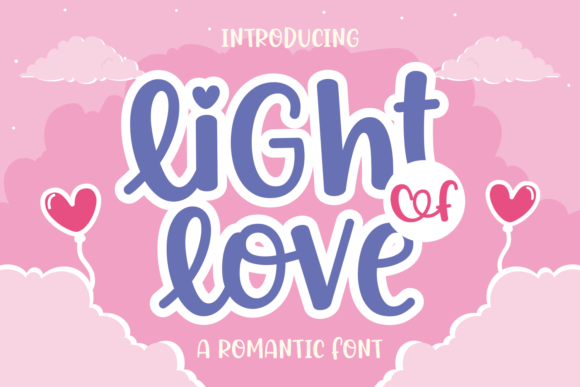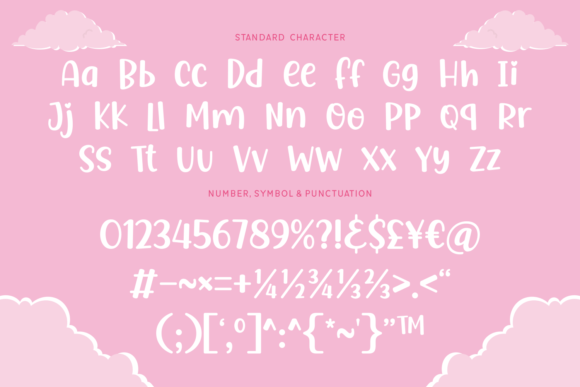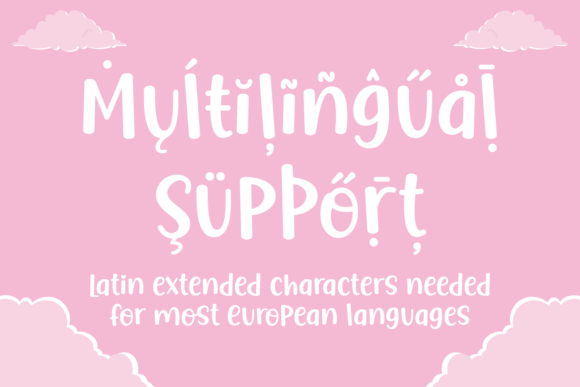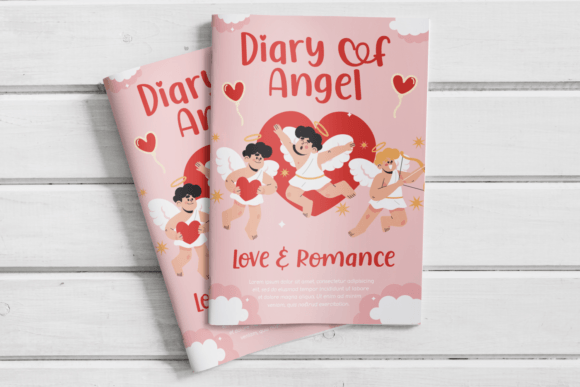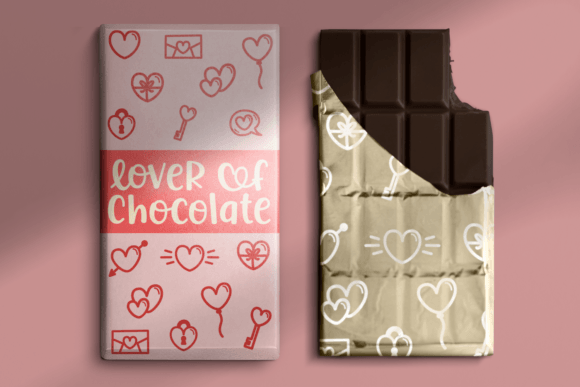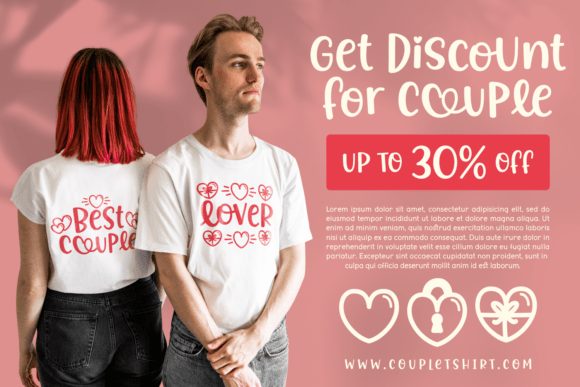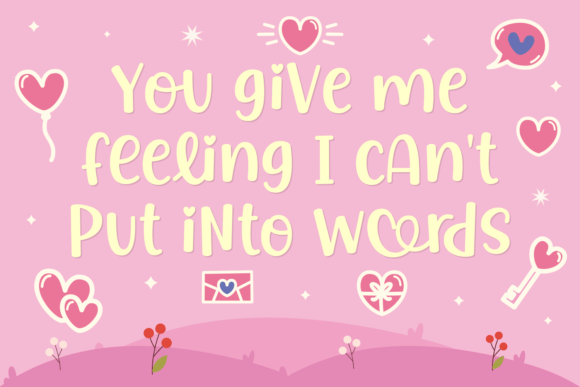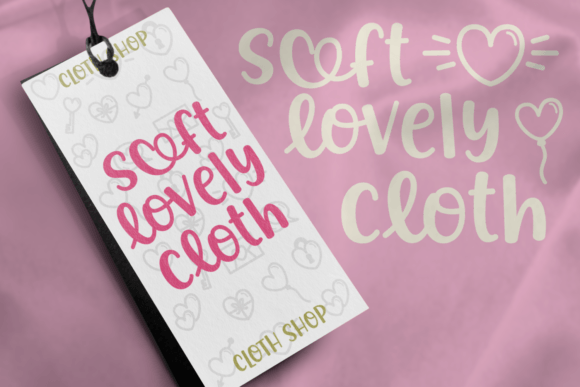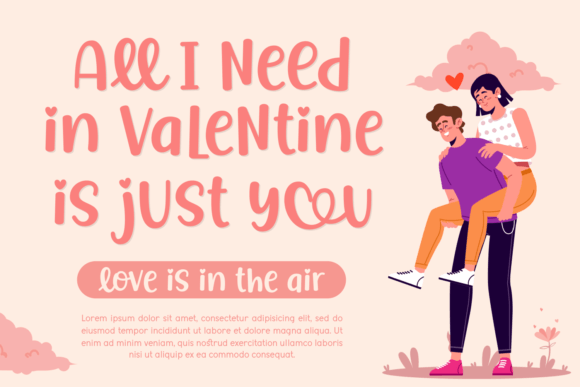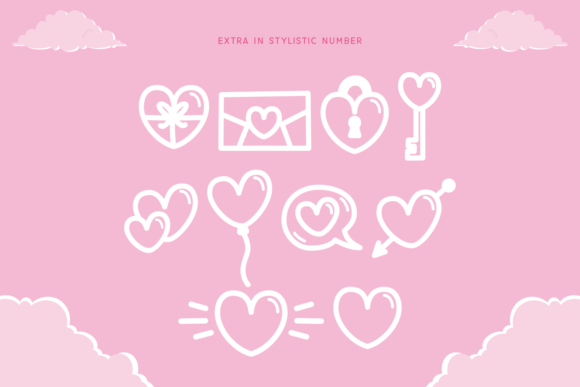
Light of Love
Light of Love Font: Elegant Script for Weddings & Romantic Designs
Radiate romance with Light of Love, a breathtaking script font that flows across your designs like liquid elegance. This PUA-encoded masterpiece combines delicate swashes with perfect letter connections, creating an atmosphere of timeless romance for your most cherished projects.
Why Designers Adore Light of Love
• Exquisite Flourishes: 18 decorative swashes included
• PUA Encoding: Full access to 700+ special characters
• Perfect Connections: Contextual alternates for seamless flow
• Dual Personality: Works for both formal and casual elegance
Enchanting Applications
Wedding Perfection
Shines in:
• Laser-cut invitation suites
• Foil-stamped place cards
• Calligraphed ceremony programs
Romantic Branding
Elevates:
• Bridal boutique logos
• Luxury perfume packaging
• Wedding planner stationery
• OpenType Features: Swashes, Ligatures, Stylistic Alternates